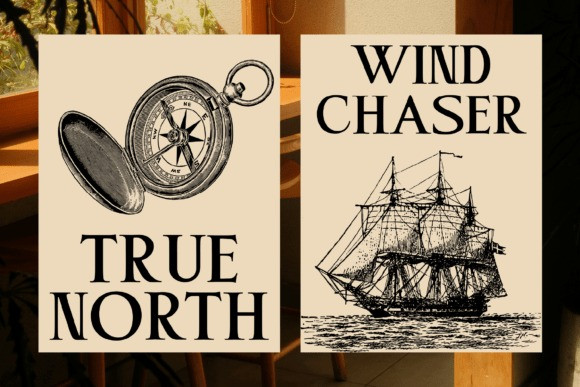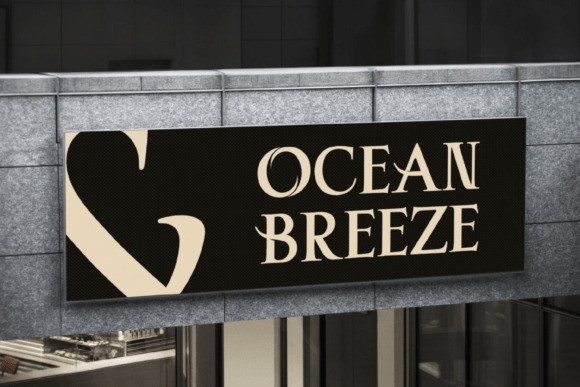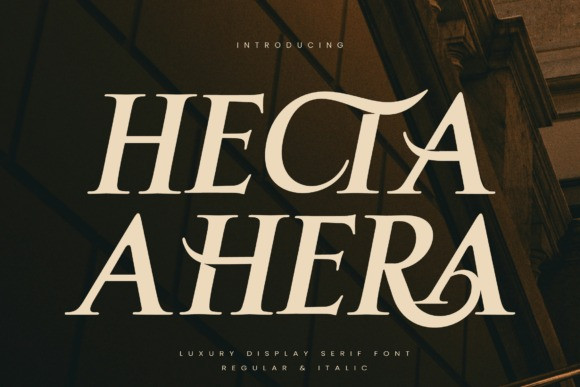
Hecta Ahera Font
Hecta Ahera Font a lavishly constructed font that conveys an atmosphere of quiet sophistication and enduring tradition. Reminiscent of serene libraries or the polished marble vestibules of landmark heritage hotels, Hecta Ahera echoes the unassuming elegance inherent in true luxury. This is a font that speaks not with a shout, but with a quietly confident whisper, crafted for those who appreciate that real opulence is often understated yet deeply felt.